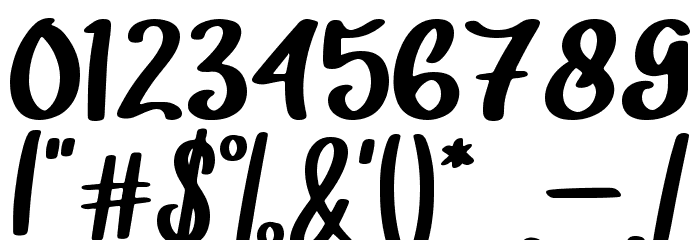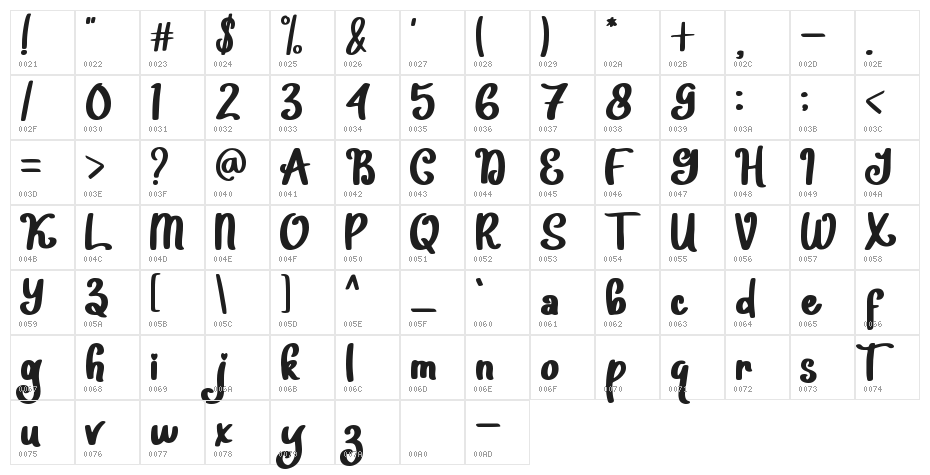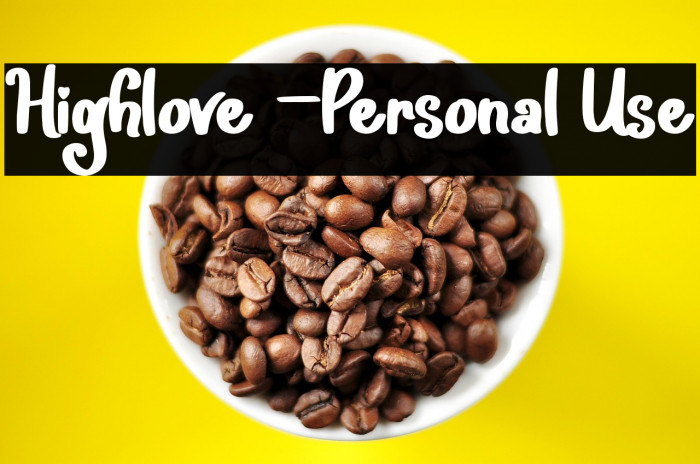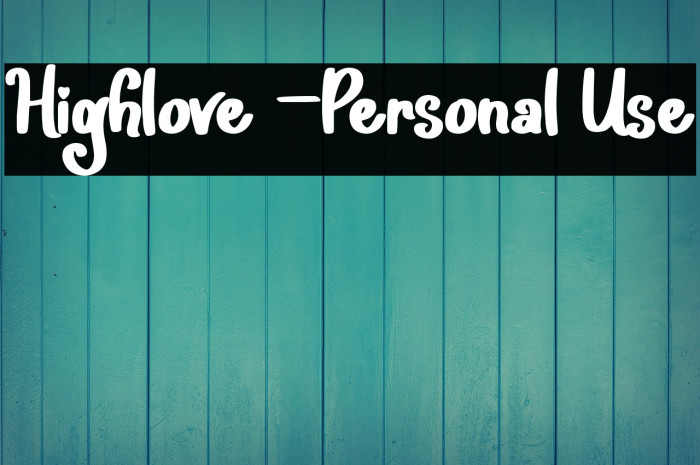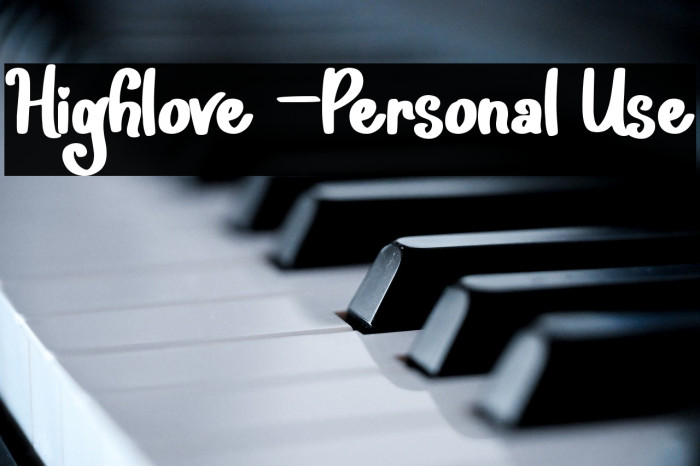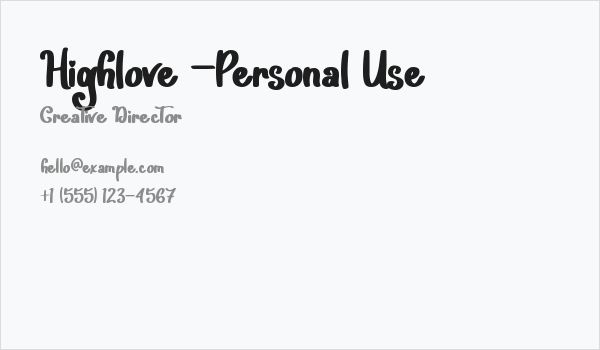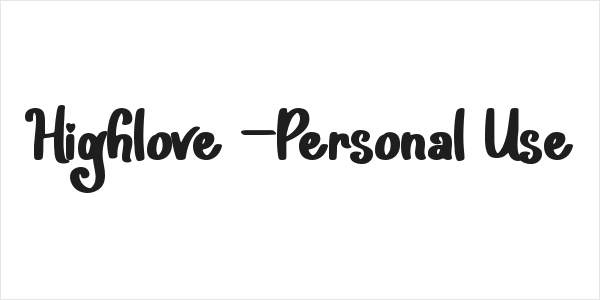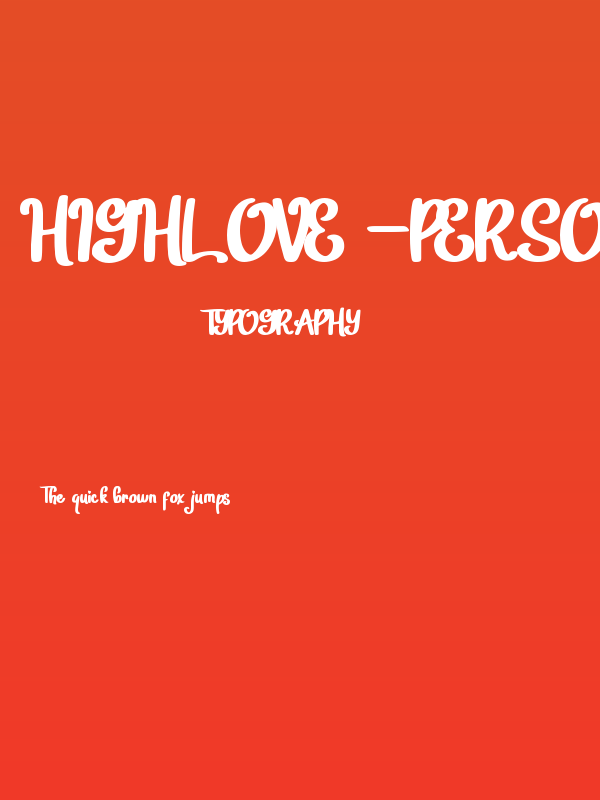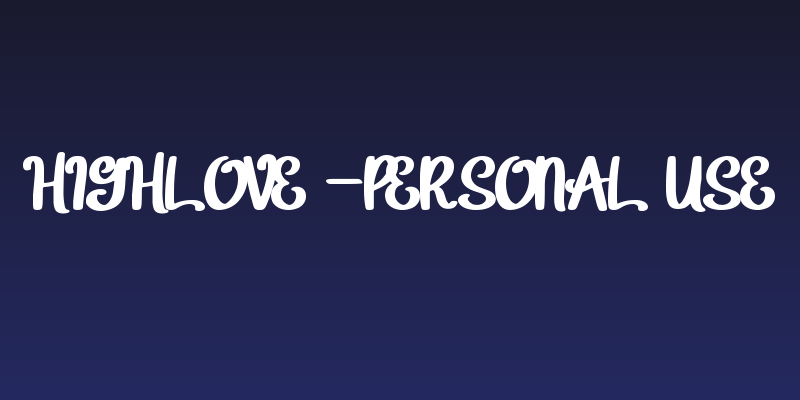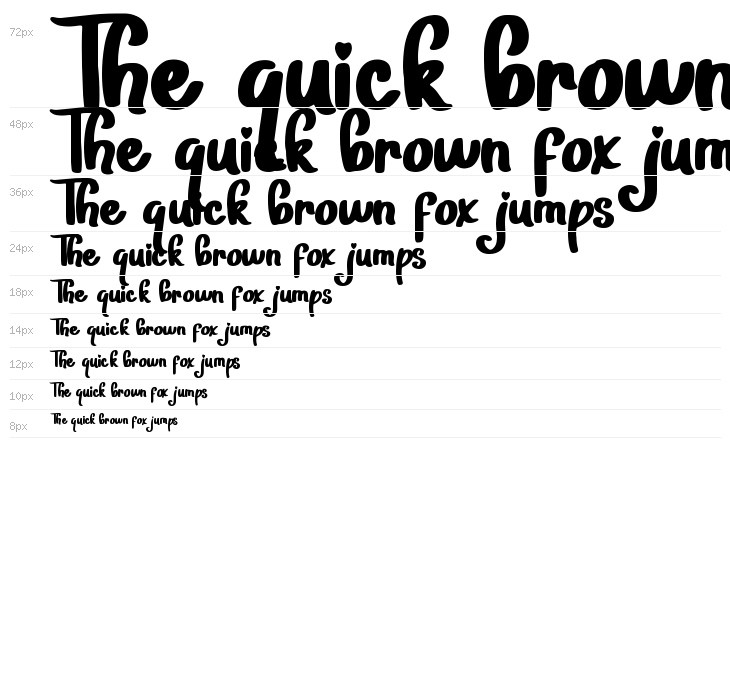
Highlove -Personal Use Font
Highlove -Personal Use Description
This font features a playful and bold script style with a hand-drawn appearance. The letters are interconnected with smooth, flowing curves, giving it a whimsical and friendly look. The uppercase and lowercase letters maintain a consistent style, with rounded edges and a slightly exaggerated thickness that adds to its charm. The numerals and special characters are designed to match the playful aesthetic, making them ideal for creative and informal projects. The overall design is cohesive and visually appealing, making it suitable for a variety of uses.
| Proposed Projects | Ideal for greeting cards, invitations, playful branding, and social media graphics. |